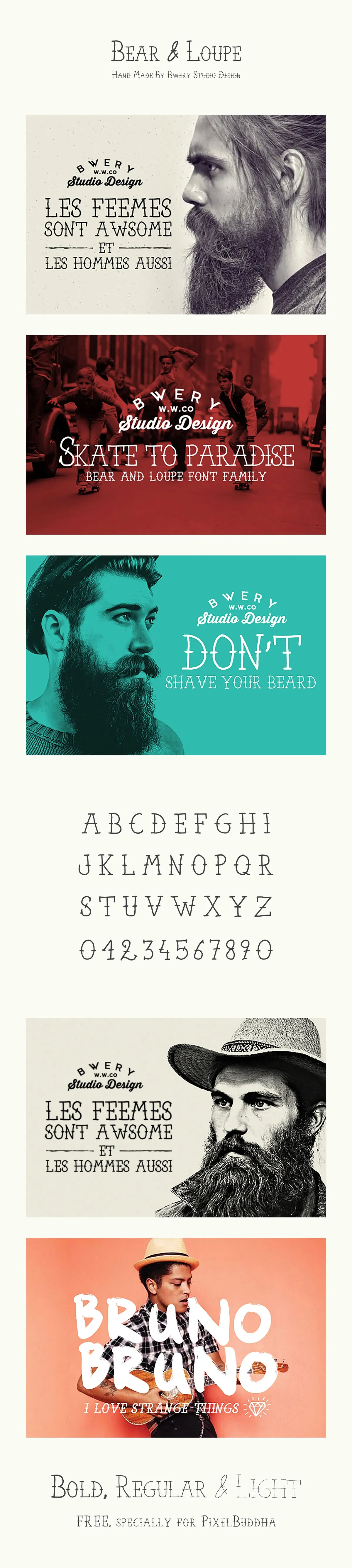
Bear & Loupe Font Family
Discover the ingenious display font, able to stick the audience to your projects! So jaunty and inventive, it sparkles with its outstanding hand-written style and vintage look.
The font is available in OTF format and designed to fit the headlines of all sizes, print graphics, logos, badges, t-shirts, and other designs. Every detail of it was created with love and care, just look how awesome this font can look as a part of your designs. Choose whether it's bold, regular or italic and then start your awesome creations!